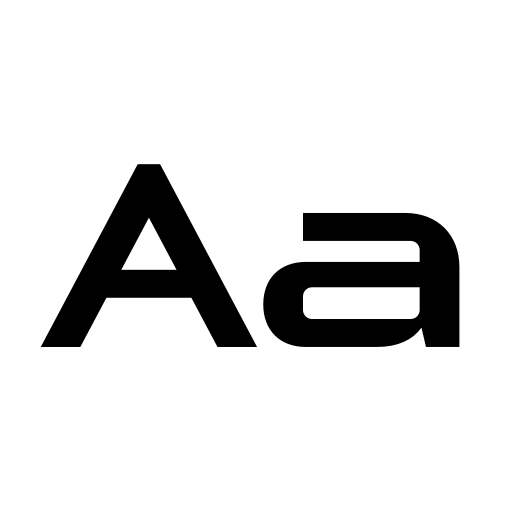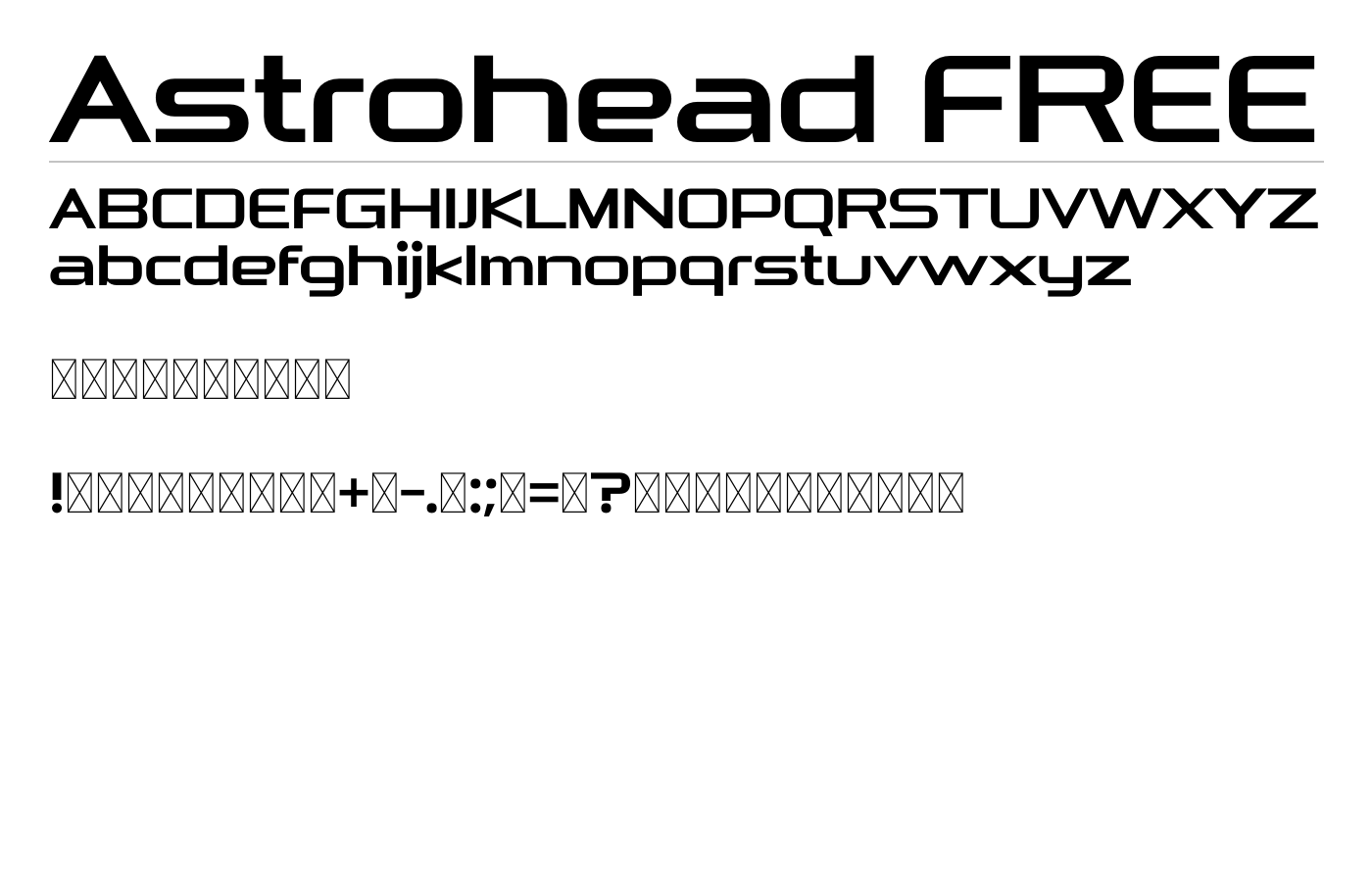
Astrohead FREE is a futuristic sans serif font featuring a clean, geometric design with a medium weight and normal width that gives it a strong, modern presence. Its sharp angles and squared-off letterforms convey a tech-savvy, forward-thinking vibe, making it ideal for brands or projects related to technology, science fiction, or innovation. This font works best for headlines, logos, and digital interfaces where bold, contemporary style is desired.
Astrohead FREE Font
About Astrohead FREE Font